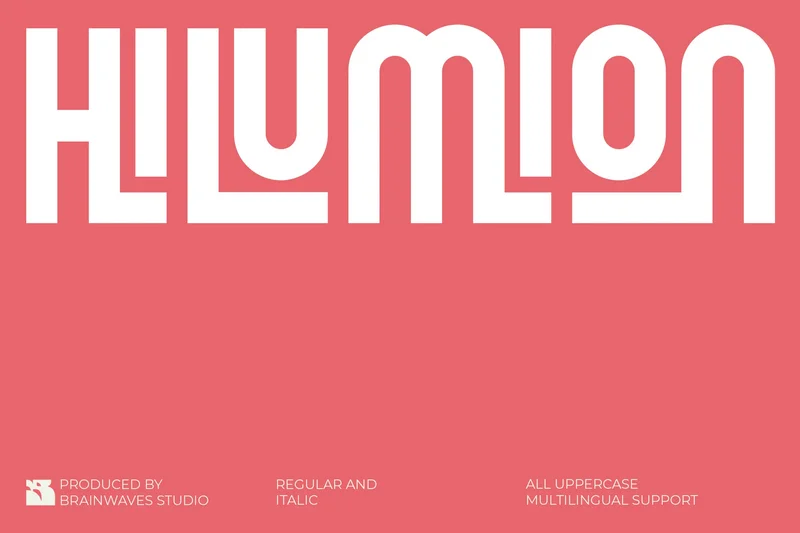
Hilumion Sans
A bold and stylish sans serif display font that combines retro charm with modern aesthetics. Its clean lines and geometric structure make it the perfect choice for designs that need to stand out while maintaining a vintage edge.
Whether you’re creating bold headlines, crafting nostalgic designs, or building a unique brand identity, Hilumion is here to make a statement.
Bring your vision to life with this fresh retro font!